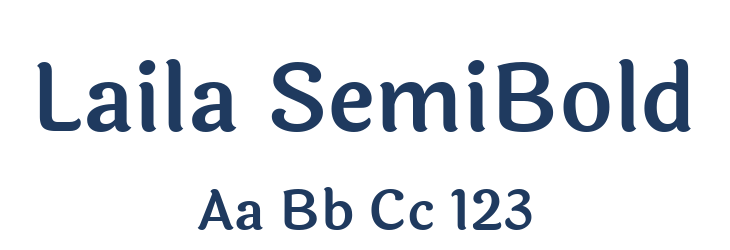
Laila SemiBold Font
A modern, semi-bold font with rounded characters and balanced spacing.
Martel Sans Bold Font
A bold, modern sans-serif font with a clean and professional look.
Biryani ExtraBold Font